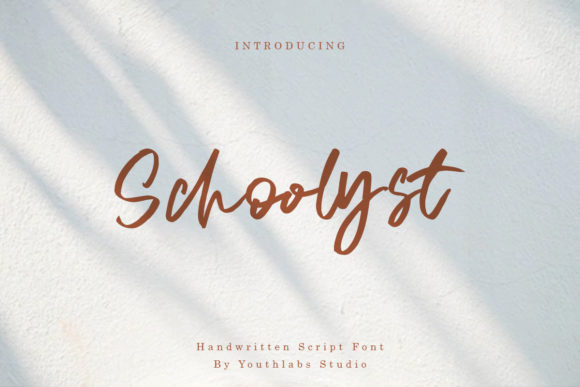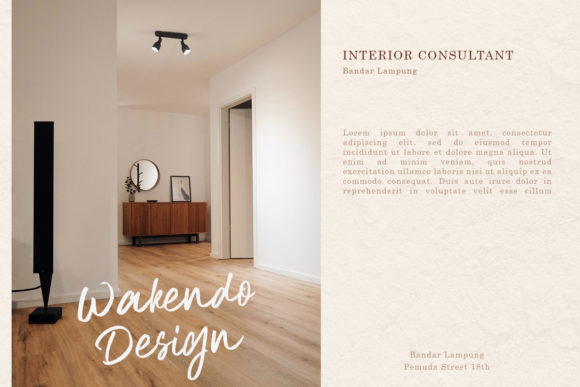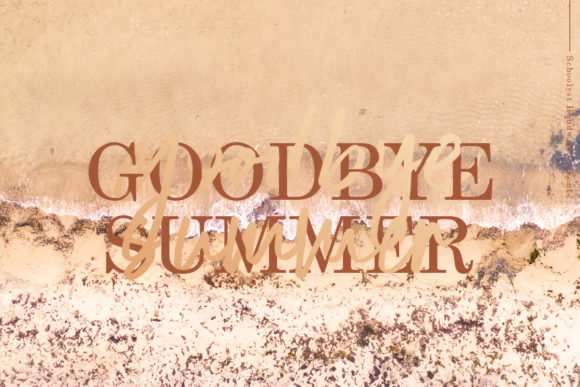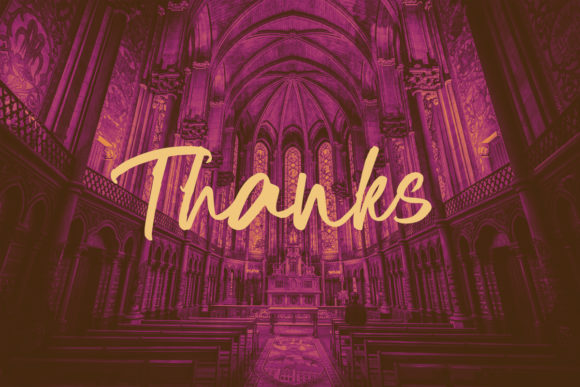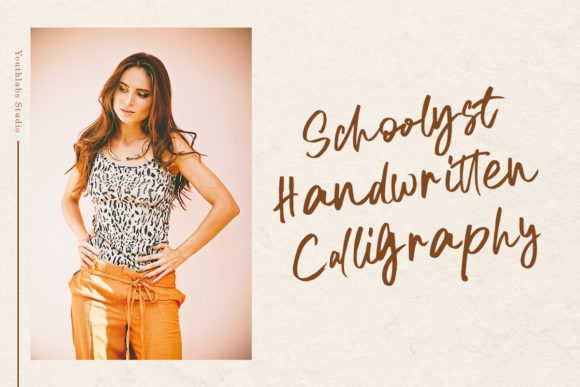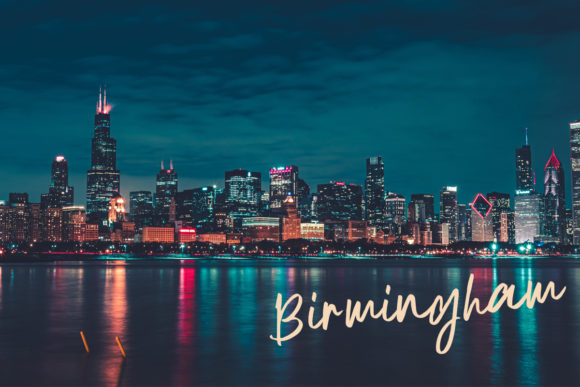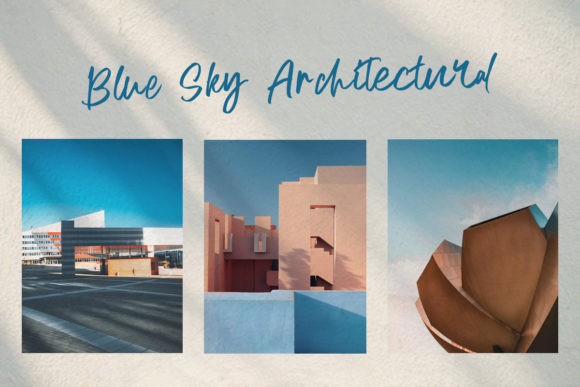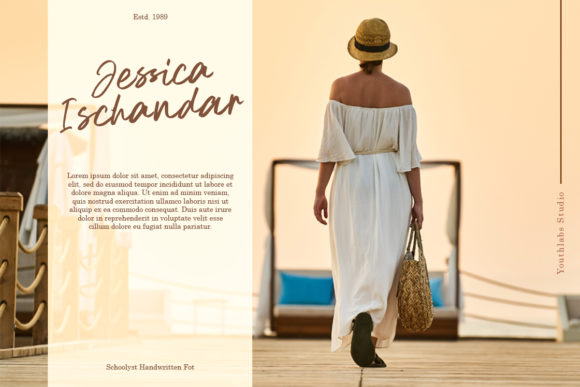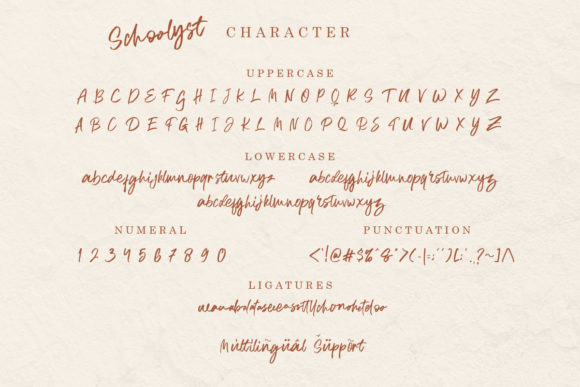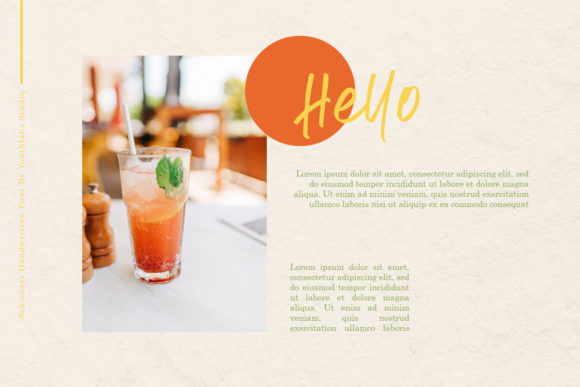
Schoolyst Font
About Schoolyst Font
Introducing the Schoolyst Handwritten Script Font.
The playful rounded characters make it the perfect font for creating stunning quote post cards, book covers, wedding invitations and more.